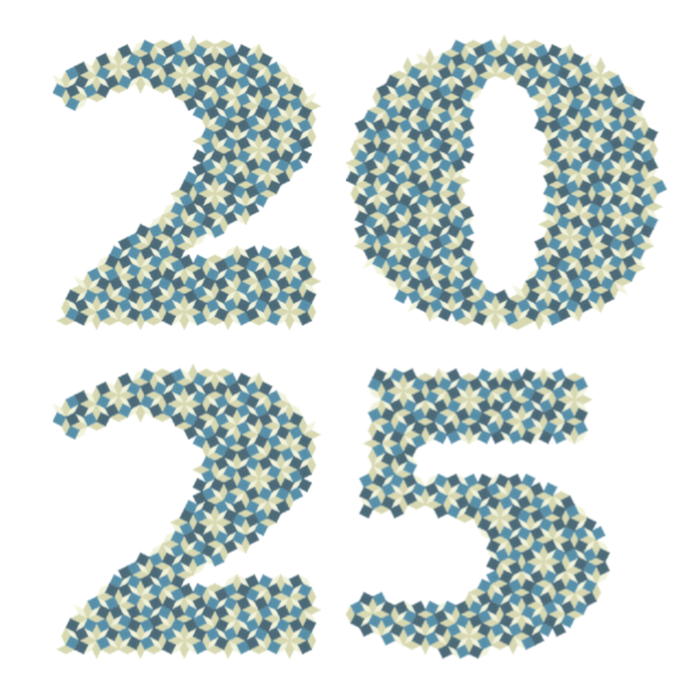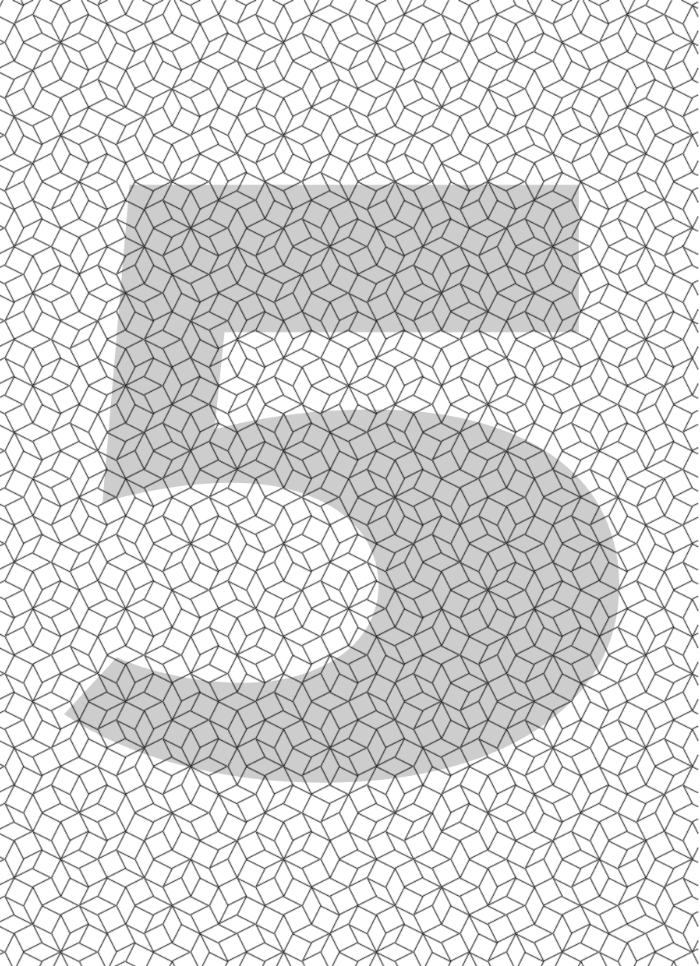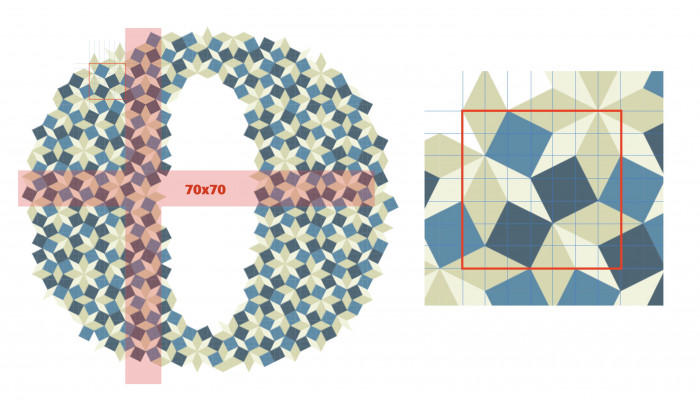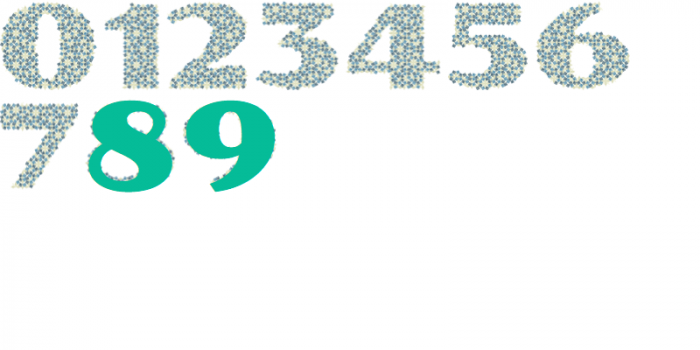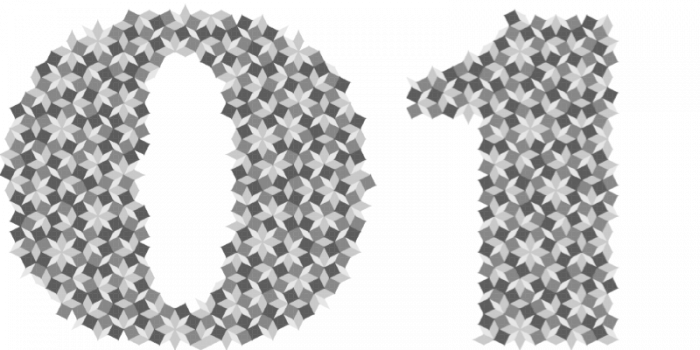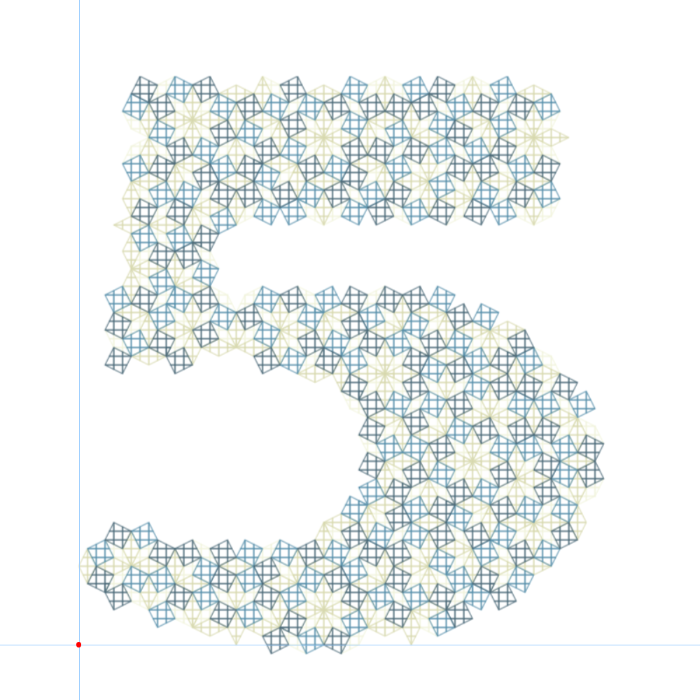
This looks great, remotely reminds me of the sheets with numbers for the ophthalmologist's color sensitivity test
Incredible tessellation; beautiful numbers. I'm awestruck.
I always say that the best part of an FS Comp happens in the last few days! Congratulations, Maestro!
Beautiful numberforms lifted from irregular tesselation, impressive!
Ok, that is actually going to win. Like I don't gave a fudge that it is a coloured font, that is going to win!
A very beautiful mosaic font. I hope you don't think that you made the font in vain, the existence of such a beautiful font is already a gift. Whatever decision Meek makes.
Perhaps he really shouldn't change the rules at the end of the competition. It is worth considering the originality of the idea, and not so much the method of creation, so color fonts may well compete with the rest. Perhaps, yes, there are more opportunities for new ideas with the possibilities of color fonts and this makes it somewhat difficult to judge fairly. But you can just take this into account in the judging, and not exclude the font completely. Moreover, a mosaic or op-art font could be made using only black bricks too. So I think the exclusion of this font is also not particularly fair, especially since not only does he have the opportunity to create color fonts for the competition, but also other participants, even though they chose not to do so.
@Goatmeal: Having one or just a few entries in a separate color font category wouldn't be much competition, would it? It sounds like segregation and color discrimination.
@meek
you had done the equivalent of messing the competition up.
i'll retire from the comp.
@Frodo7 - Sadly it goes both ways, as others might feel like it's color discrimination for NOT being FS Patrons, for NOT having access to the tools that come with being a paying member and being at disadvantage.  Perhaps it will entice others to become FS Patrons?  Maybe, maybe not...
I really have no hate on this font
Sometimes beauty can be found in the most unpredictable places.
how is it colourful